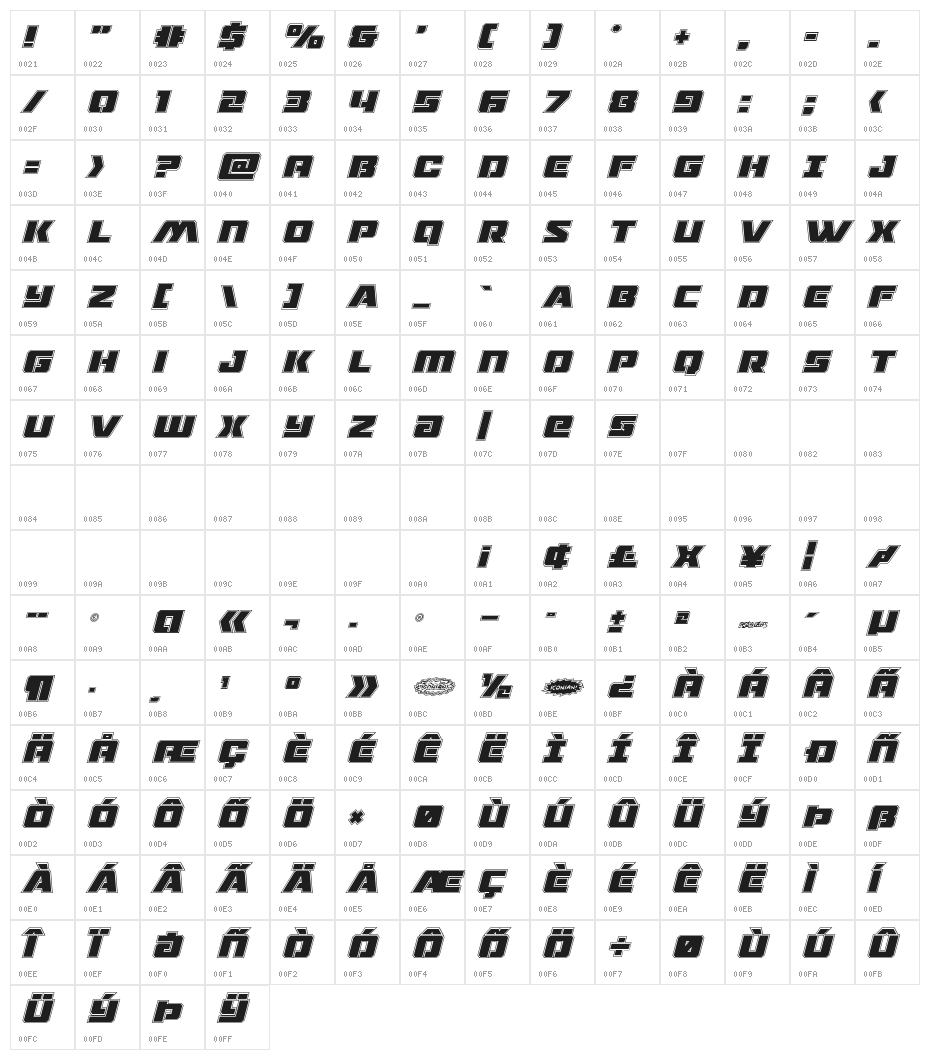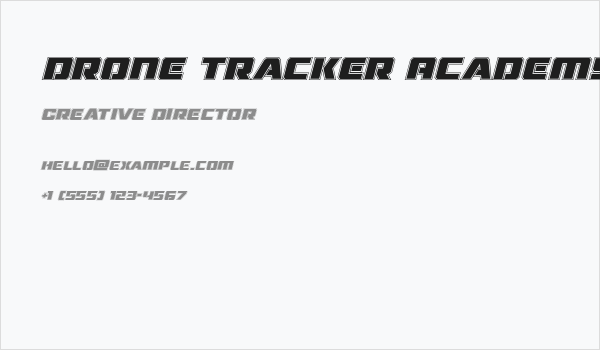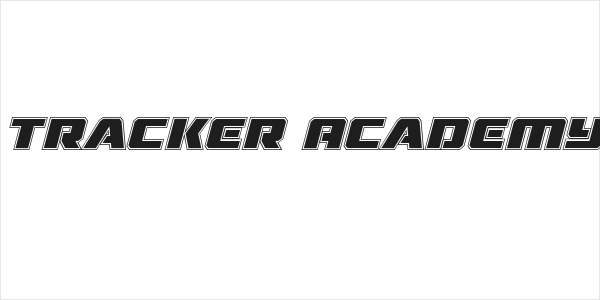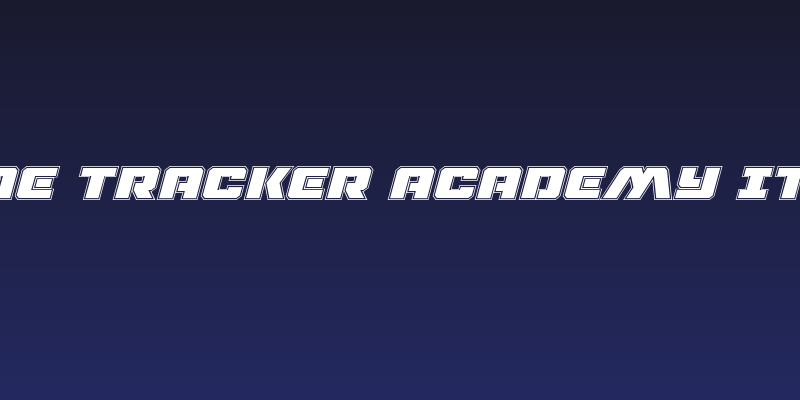
Drone Tracker Academy Italic Font
Drone Tracker Academy Italic Description
This font features a bold, italicized style with a modern and futuristic appearance. The characters are designed with sharp angles and a distinct geometric structure, giving them a dynamic and energetic feel. The uppercase and lowercase letters maintain a consistent style, with a slight slant that enhances the italic effect. Numbers and special characters are crafted with the same attention to detail, ensuring a cohesive look across all elements. The font's boldness and unique design make it stand out, suitable for projects that require a strong visual impact.
| Proposed Projects | Ideal for technology branding, sports team logos, futuristic posters, and video game titles. |